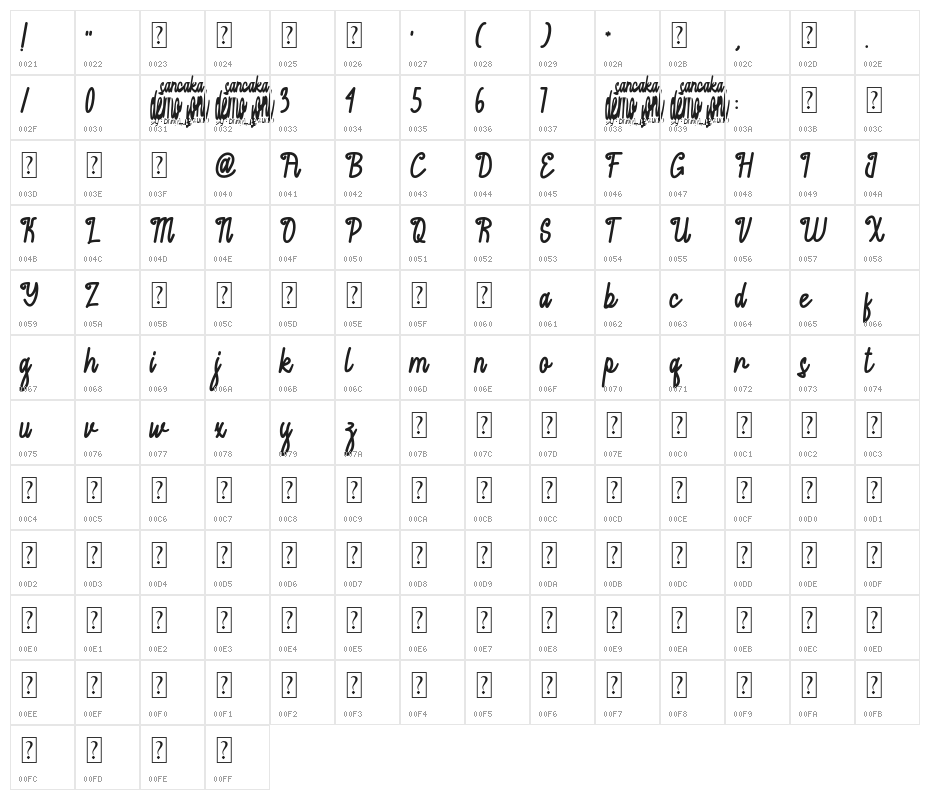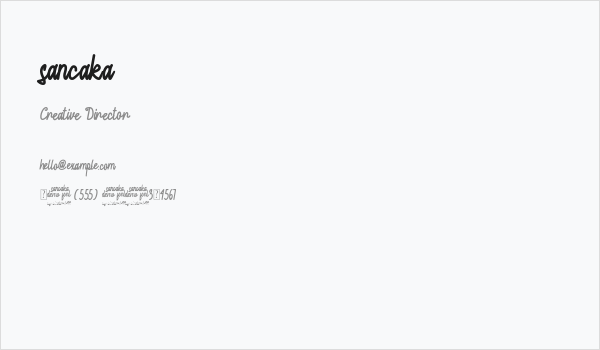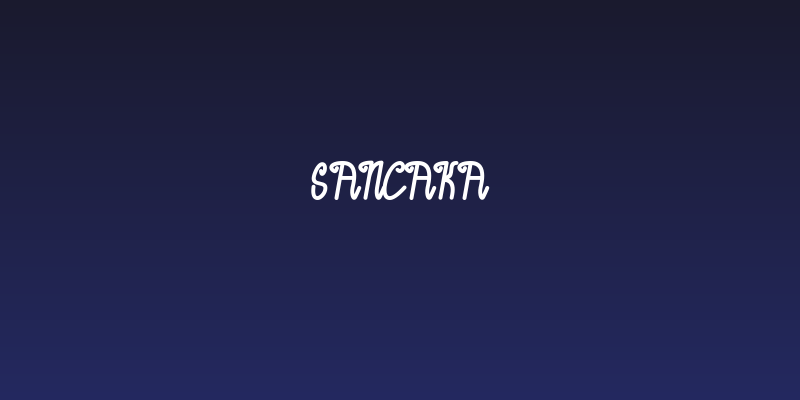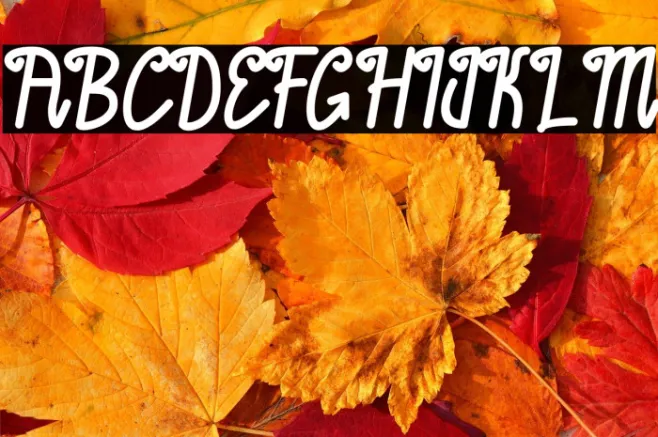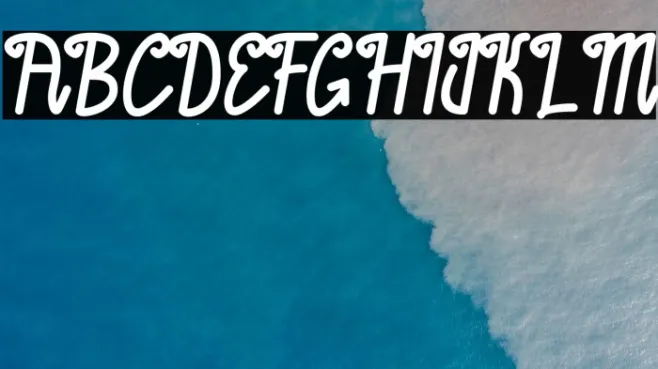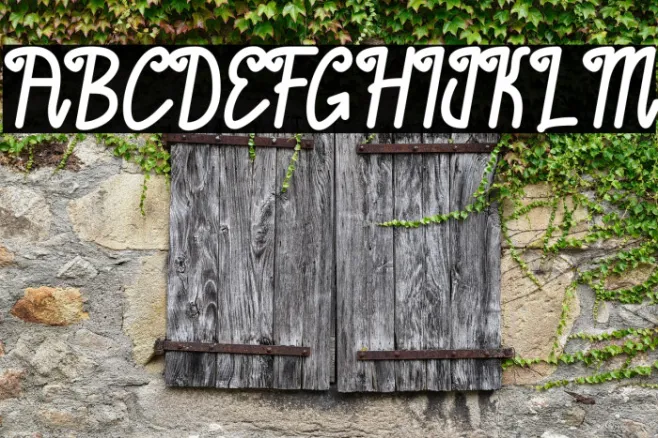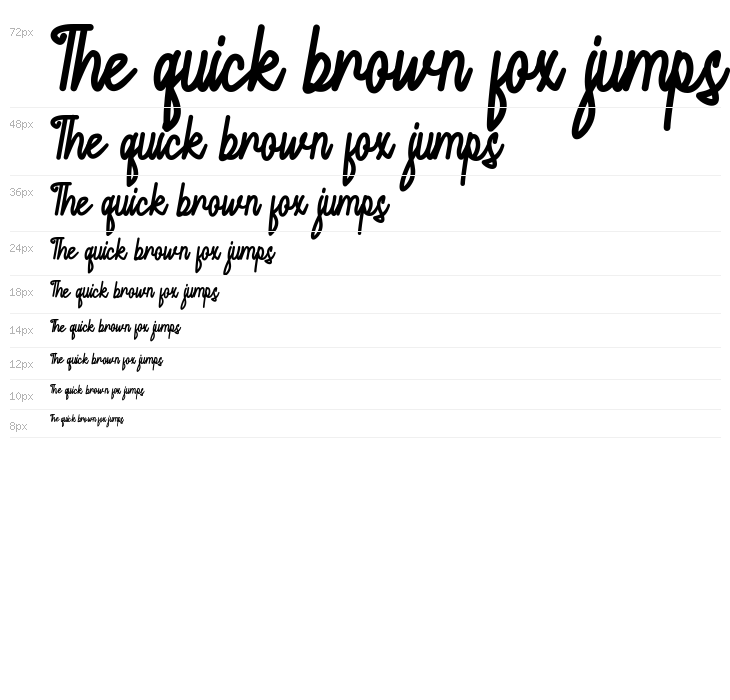
sancaka Font
sancaka Description
This font features a dynamic and flowing script style, characterized by its smooth, cursive strokes and elegant curves. The uppercase letters exhibit a bold presence with a slight slant, while the lowercase letters maintain a consistent fluidity, enhancing readability. The numerals and special characters are designed to complement the overall script aesthetic, ensuring a cohesive look across all text. This font's playful yet sophisticated style makes it versatile for various design applications.
SANCAKA UPPERCASE
SANCAKA LOWERCASE
SANCAKA OTHER CHARS